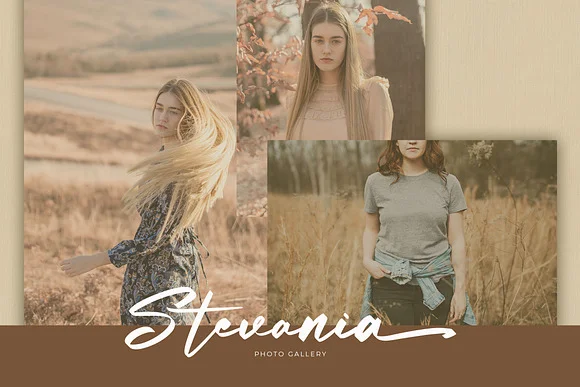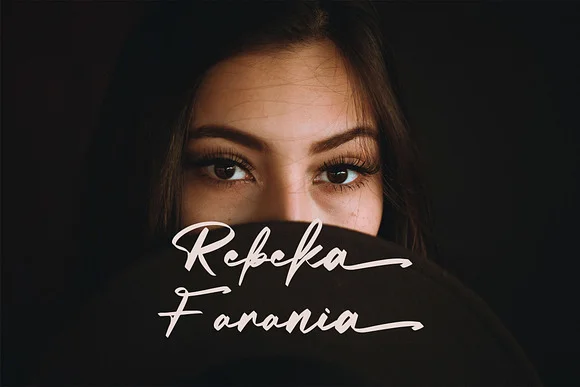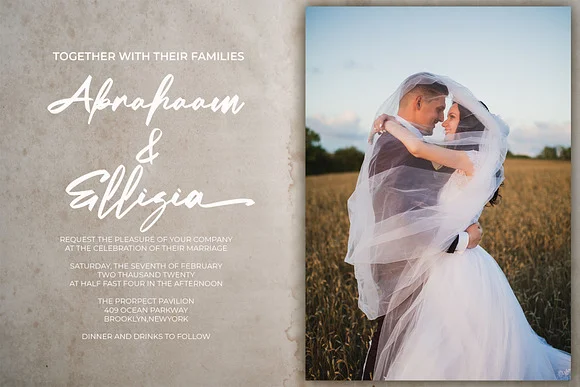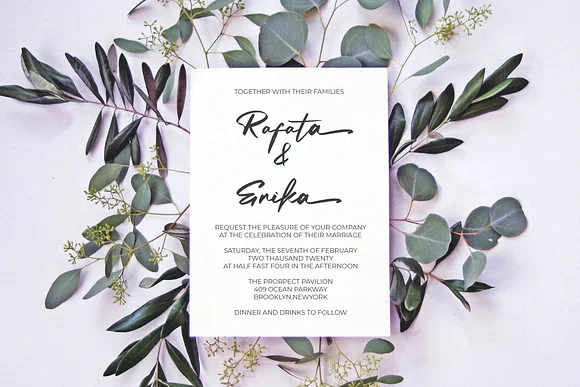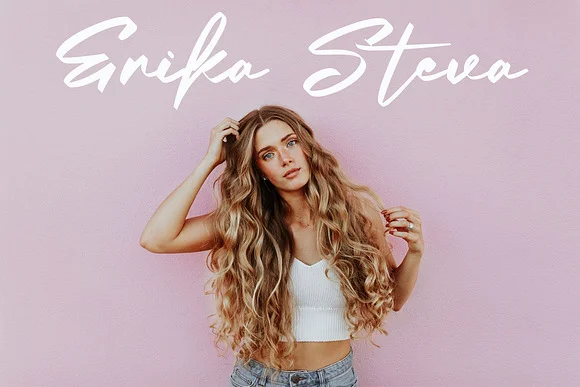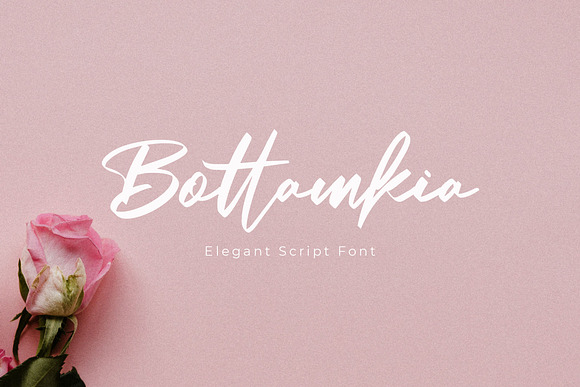
Bottamkia Brush Script Font
A good typeface communicates tone before a single word is read. Bottamkia Brush Script achieves this through controlled contrast that rewards close inspection. The typeface brings an elegant, calligraphic sensibility to a broad range of creative disciplines, with distinctive character without sacrificing readability that holds up whether the work is print-first or screen-first.
In practice, Bottamkia Brush Script proves particularly effective for high-end cosmetic packaging, annual reports, signage systems, luxury stationery, advertising campaigns. Designers reaching for it find that the type decisions feel resolved rather than laboured — a useful quality when client timelines are tight.
The range of applications extends to editorial layouts, brand identity systems, product labels, poster creation. That breadth is deliberate: the proportions and spacing were stress-tested across a wide range of mock briefs before the typeface was finalised.
Graphic designers working on identity systems find Bottamkia Brush Script a reliable choice for projects that demand both personality and restraint. The design avoids the self-conscious quirkiness that dates quickly, settling instead for considered distinctiveness that holds up over time.